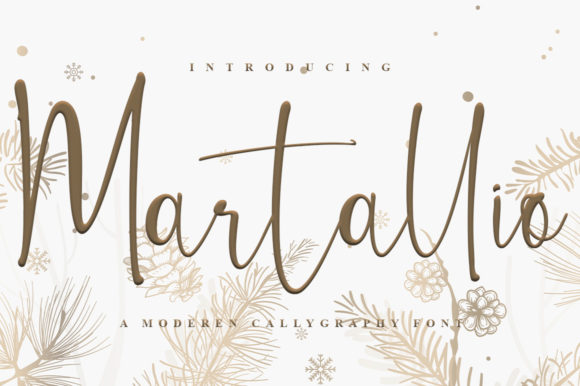
Prepare yourself to be mesmerized, as you embark on a captivating journey into the world of Martallio, a masterpiece crafted by the artistic hands of KangUsro Studio. Within this script font lies an enchanting blend of captivating curves and delicate strokes, exuding grace and refinement with every character.
Experience the allure of Martallio, a font that effortlessly elevates your creative endeavors to new heights. Whether you're crafting breathtaking logos, building a captivating brand identity, or designing unforgettable invitations, Martallio has the versatility to transform your vision into reality. Its elegant lines add a touch of sophistication to any project, leaving an unforgettable mark on the hearts of your audience.
With Martallio, you possess the key to unlock creative freedom. Unleash your imagination and design social media posts that captivate attention, business cards that leave a lasting impression, and greeting cards that convey heartfelt messages. Let Martallio guide your hand as you create stunning wall art that adorns your home with a touch of artistic flair.
Beyond its aesthetic beauty, Martallio holds the power to ignite emotions and forge connections. Its graceful script evokes a sense of warmth and intimacy, making it the perfect choice for wedding designs that celebrate love and joy. With Martallio, your words will dance across the page, captivating hearts and creating memories that will be cherished for a lifetime.